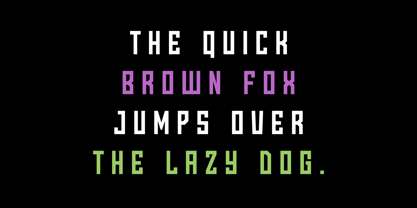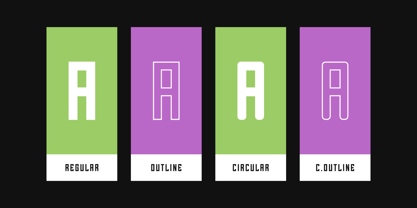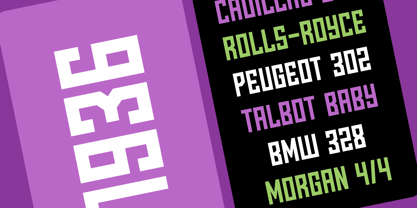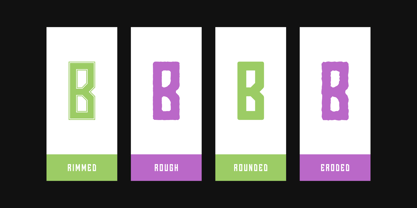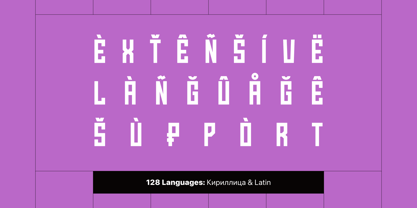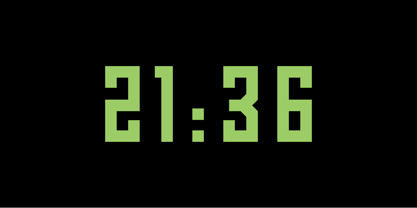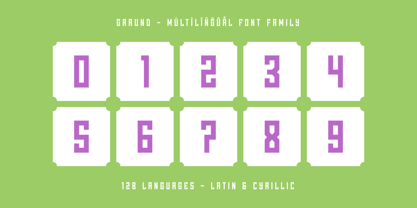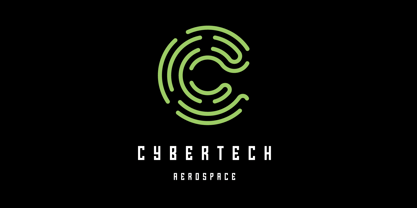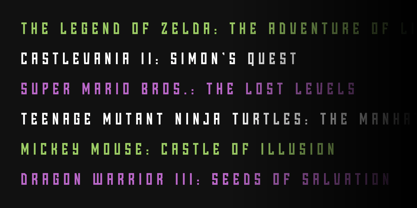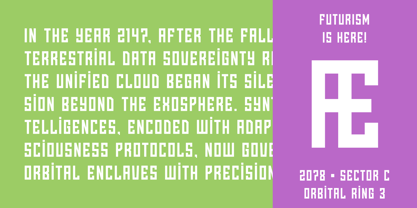
Graund
by AlperCakici
Graund is a bold and versatile typeface built on a rectangular, sharp, and block-driven structure. Designed for impact, it combines geometric precision with expressive variations, making it suitable for both modern branding and experimental typography. The family offers an extensive range of styles, from clean and structured cuts like Regular, Inline, and Outline to more expressive forms such as Brush, Pencil, Rough, and Noise. Graund also explores form through its Angular, Circular, and Rounded subfamilies—each bringing a unique tone while maintaining visual consistency. With a wide selection of italics and stylistic alternates, Graund adapts effortlessly across creative directions. Whether you're designing posters, logos, packaging, or digital interfaces, it provides both clarity and personality. Supporting a broad range of languages (Cyrillic & Latin), Graund is built for global communication while maintaining a distinctive visual identity. Its modular system allows designers to mix styles dynamically, creating layered, dimensional typography. Graund is not just a typeface—it’s a flexible design system for bold visual storytelling.
Designers: Alper Çakıcı
Foundry: AlperCakici